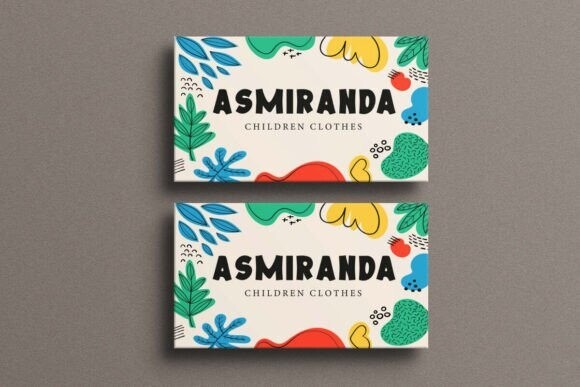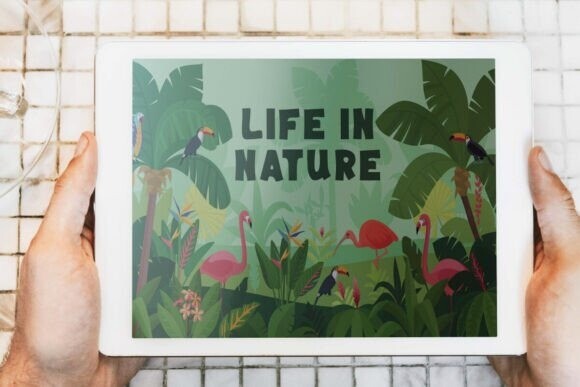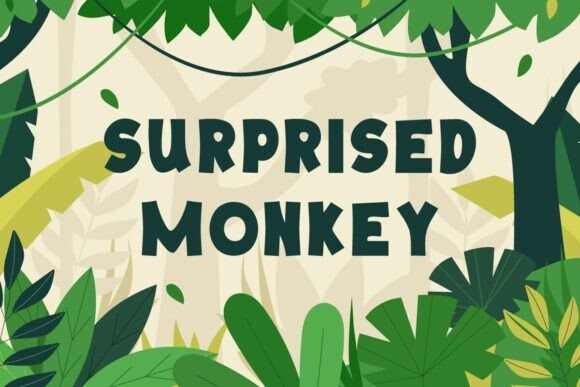
Surprised Monkey Font
Surprised Monkey Font is a playful, bold cartoon font family with three styles: Regular, Italic, and Bold. It brings a fun, friendly vibe to any project, making it ideal for businesses like accessory shops, cafés, kids’ food and clothing brands, comics, cheerful camps, interior design, juice and beverage brands, kids’ crafts, printing, publishing, schools, social media content, writers, and other fun-related themes.